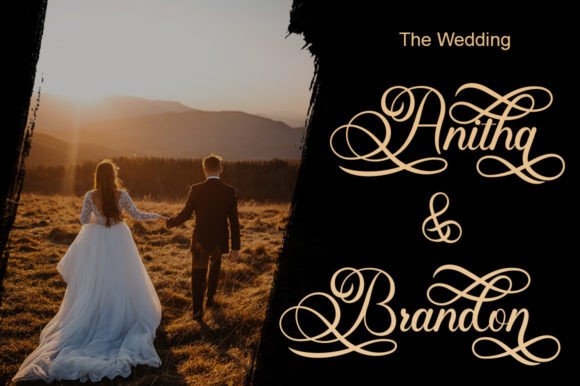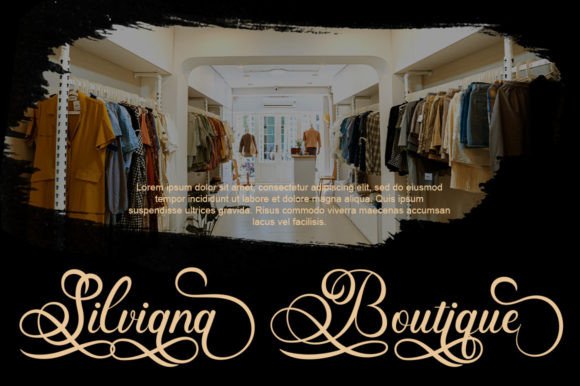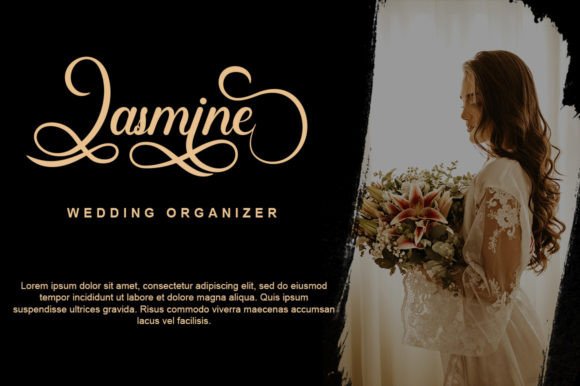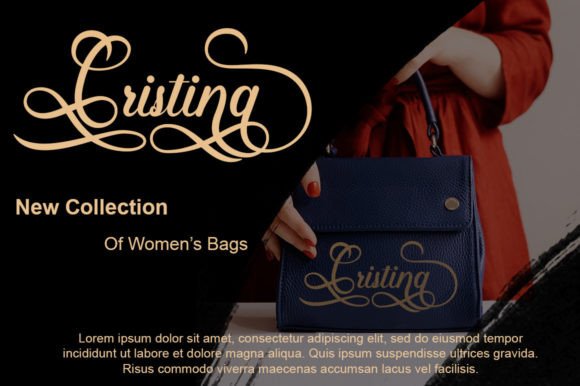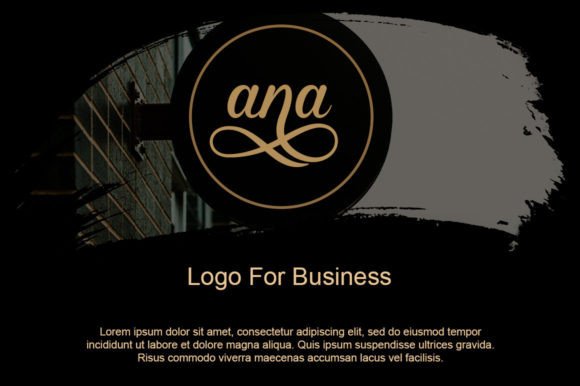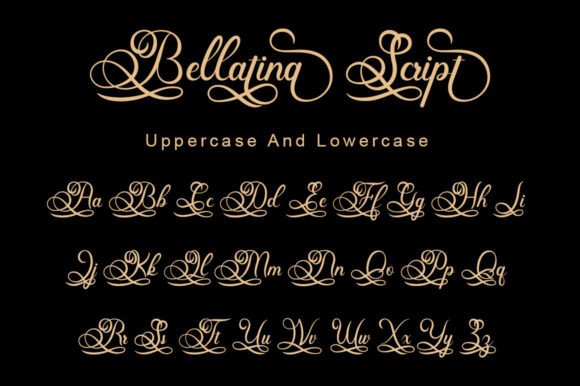
Bellatina Script Font: Elevate Your Designs with Luxurious and Romantic Flair
In the world of typography, few fonts capture the essence of luxury and romance as beautifully as the Bellatina Script Font. This exquisite script font is designed to add a touch of elegance and sophistication to any design project, making it a perfect choice for designers and crafters looking to create stunning visual content. With its very fine strokes in every letter, Bellatina Script exudes a sense of refinement and poise, ideal for projects that demand a high level of aesthetic appeal.
The Characteristics of Bellatina Script Font
Bellatina Script Font is distinguished by its luxurious and romantic appearance, characterized by:
- Fine Strokes: Every letter in the Bellatina Script Font features very fine strokes, which contribute to its elegant and sophisticated look.
- Fluid Connections: The font’s script nature ensures fluid connections between letters, creating a harmonious and flowing text that is pleasing to the eye.
- Versatility: Despite its luxurious feel, Bellatina Script is incredibly versatile, suitable for a wide range of design applications.
Ideal Uses for Bellatina Script Font
The elegance of Bellatina Script Font makes it an excellent choice for various design projects, including:
- Wedding Invitations: Add a touch of romance and luxury to wedding invitations, making the occasion even more special.
- Thank You Cards: Express gratitude in style with beautifully designed thank you cards that leave a lasting impression.
- Quotes and Greeting Cards: Elevate inspirational quotes and greeting cards with a font that speaks of elegance and refinement.
- Logos and Business Cards: For businesses aiming to convey a sense of luxury and professionalism, Bellatina Script Font can be a valuable asset in creating memorable logos and business cards.
Why Designers and Crafters Love Bellatina Script Font
Designers and crafters often seek fonts that not only enhance the aesthetic appeal of their projects but also convey a specific mood or emotion. Bellatina Script Font, with its luxurious and romantic characteristics, offers several advantages:
- Emotional Connection: The font helps create an emotional connection with the audience, making designs more impactful and memorable.
- Aesthetic Appeal: Its fine strokes and elegant appearance add a high level of aesthetic appeal to any design, setting it apart from more common fonts.
- Time-Saving: With Bellatina Script, designers can achieve professional-looking results quickly, saving time and effort in the design process.
Tips for Using Bellatina Script Font Effectively
To maximize the potential of Bellatina Script Font in your designs, consider the following tips:
- Pair with Complementary Fonts: When combining Bellatina Script with other fonts, choose fonts that complement its elegance, such as simple sans-serifs or classic serifs.
- Adjust Letter Spacing: Fine-tune the letter spacing to ensure optimal readability and aesthetic appeal, as the default settings may vary depending on the design application.
- Experiment with Colors: While the font itself conveys luxury, the color scheme can further enhance its impact. Experiment with gold, blush, navy blue, or other sophisticated colors to match your design’s theme.
Bellatina Script Font is a powerful tool for designers and crafters aiming to infuse their projects with a luxurious and romantic touch. Its fine strokes, fluid connections, and versatility make it suitable for a wide array of design applications, from wedding invitations and greeting cards to logos and business cards. By incorporating Bellatina Script into your designs, you can elevate your work, making it more aesthetically pleasing and emotionally resonant. Whether you’re working on a high-end brand project or a personal craft, this elegant script font is sure to leave a lasting impression.